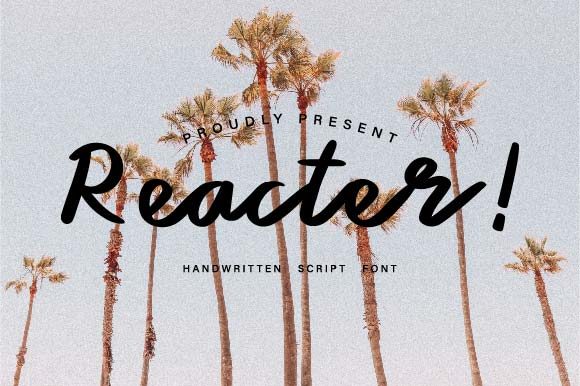
About Reacter Font
Reacter is an exquisite handwritten font, designed to become a top choice. It has simple and classy calligraphic influences and is incredibly versatile. Use it for both formal and informal designs.